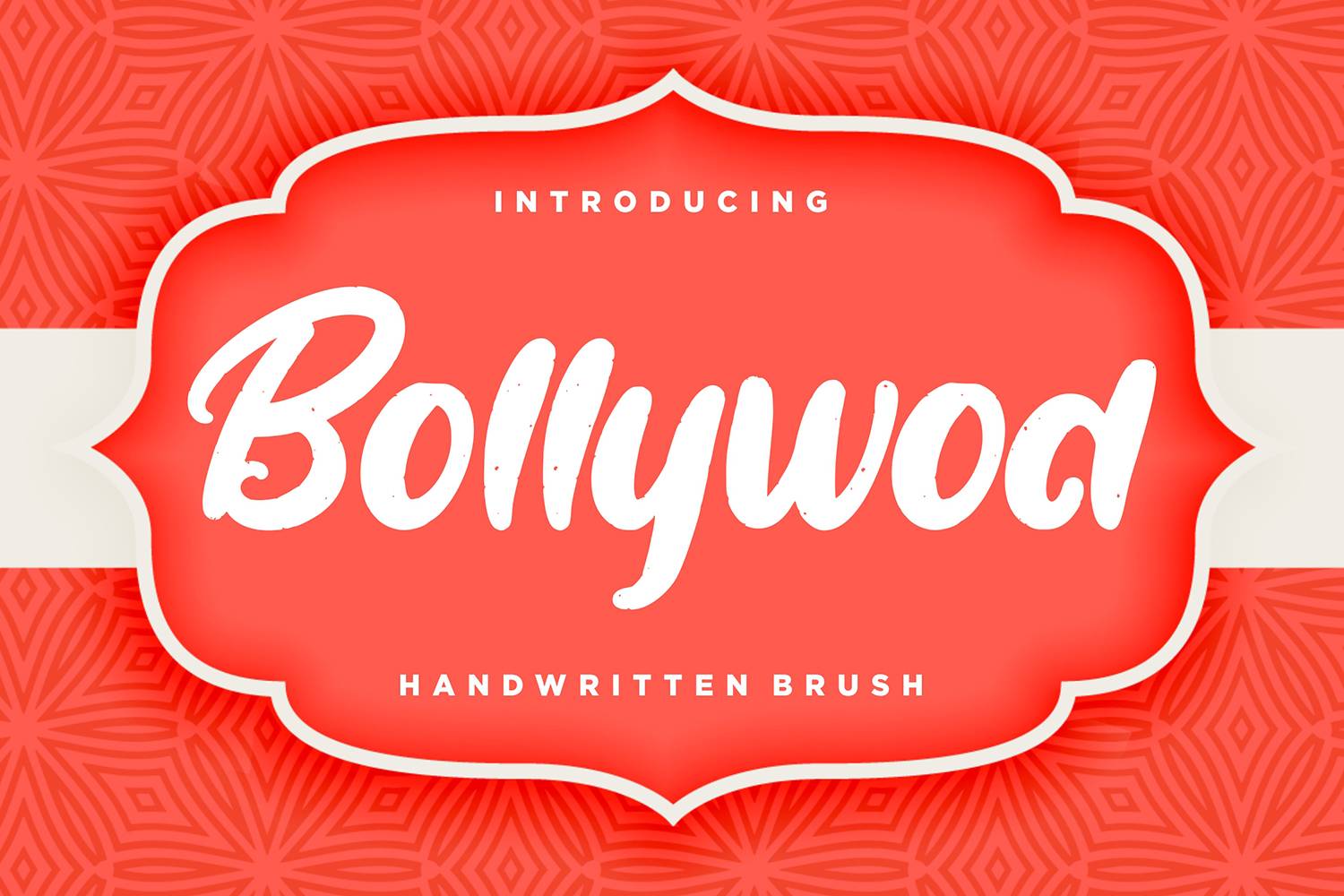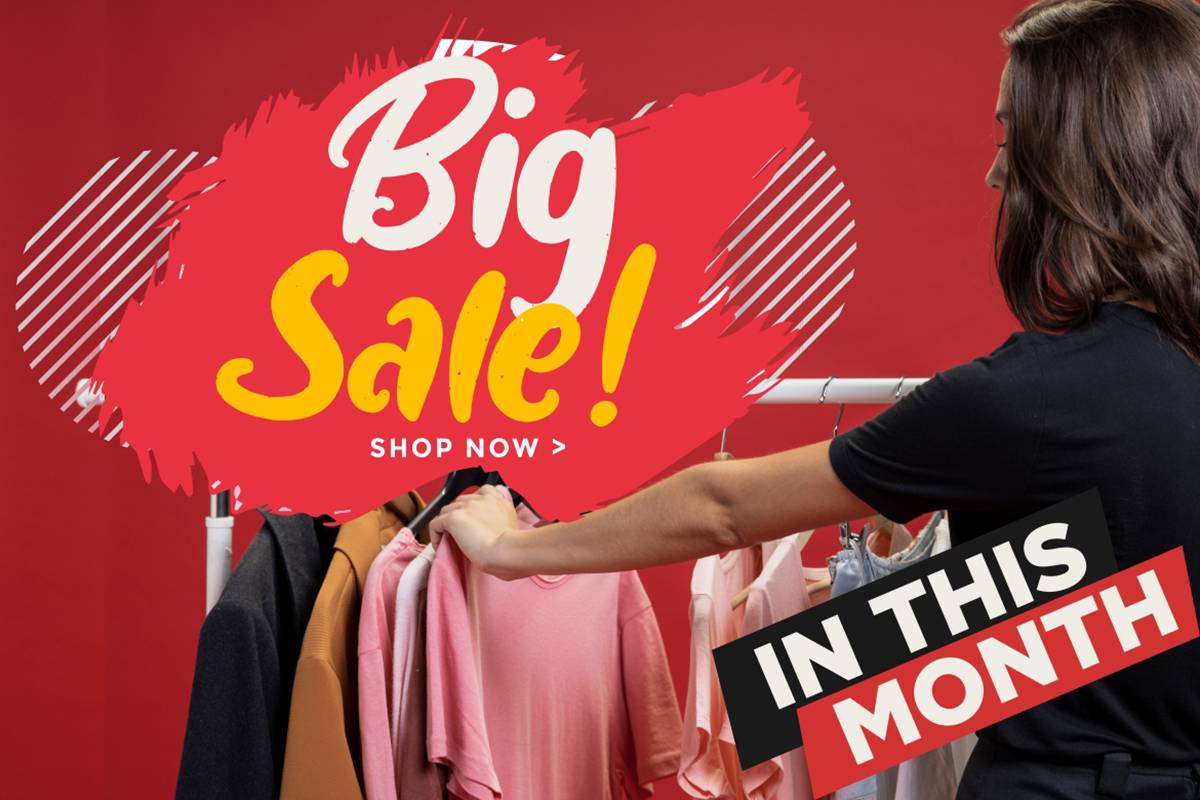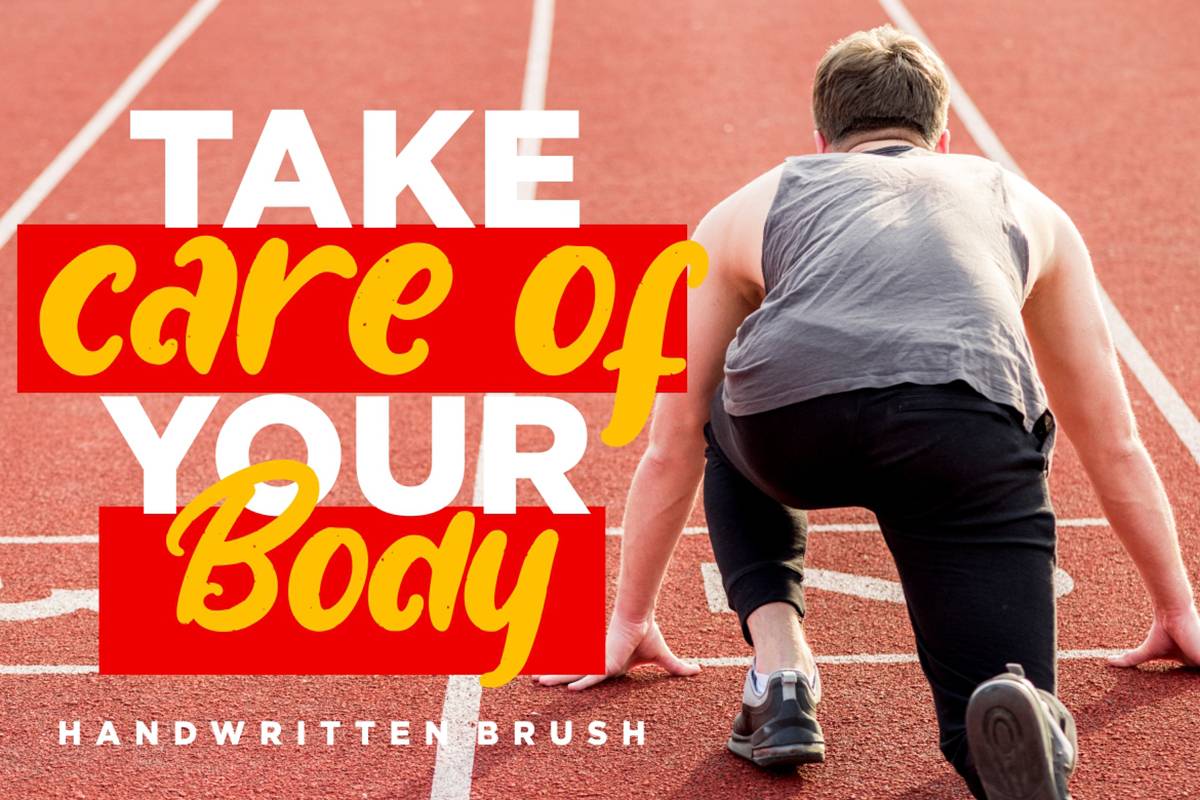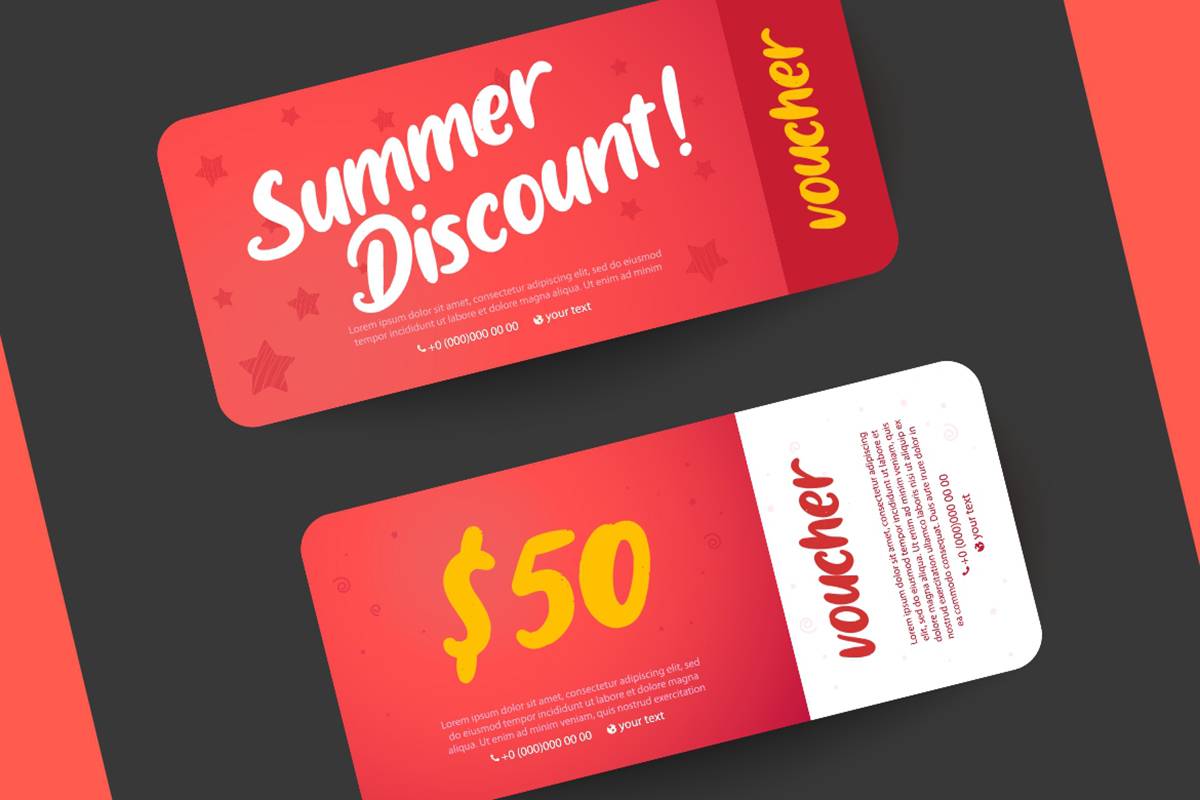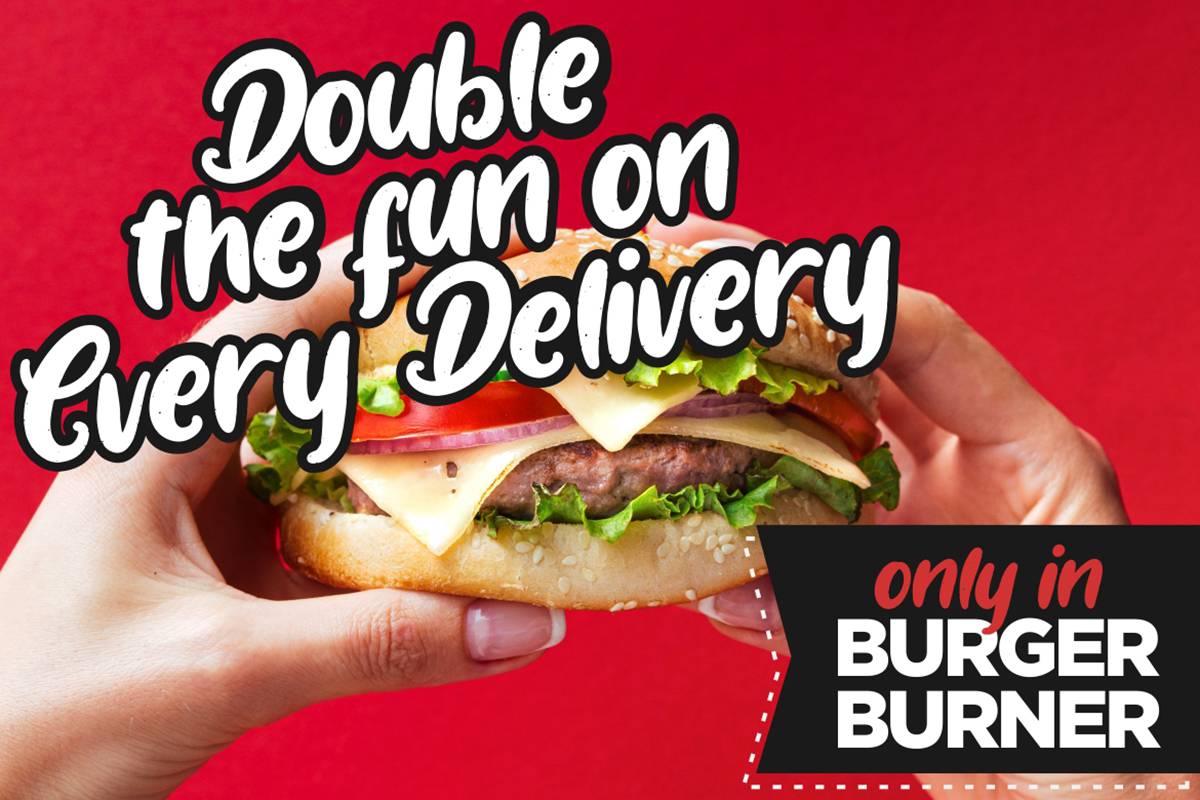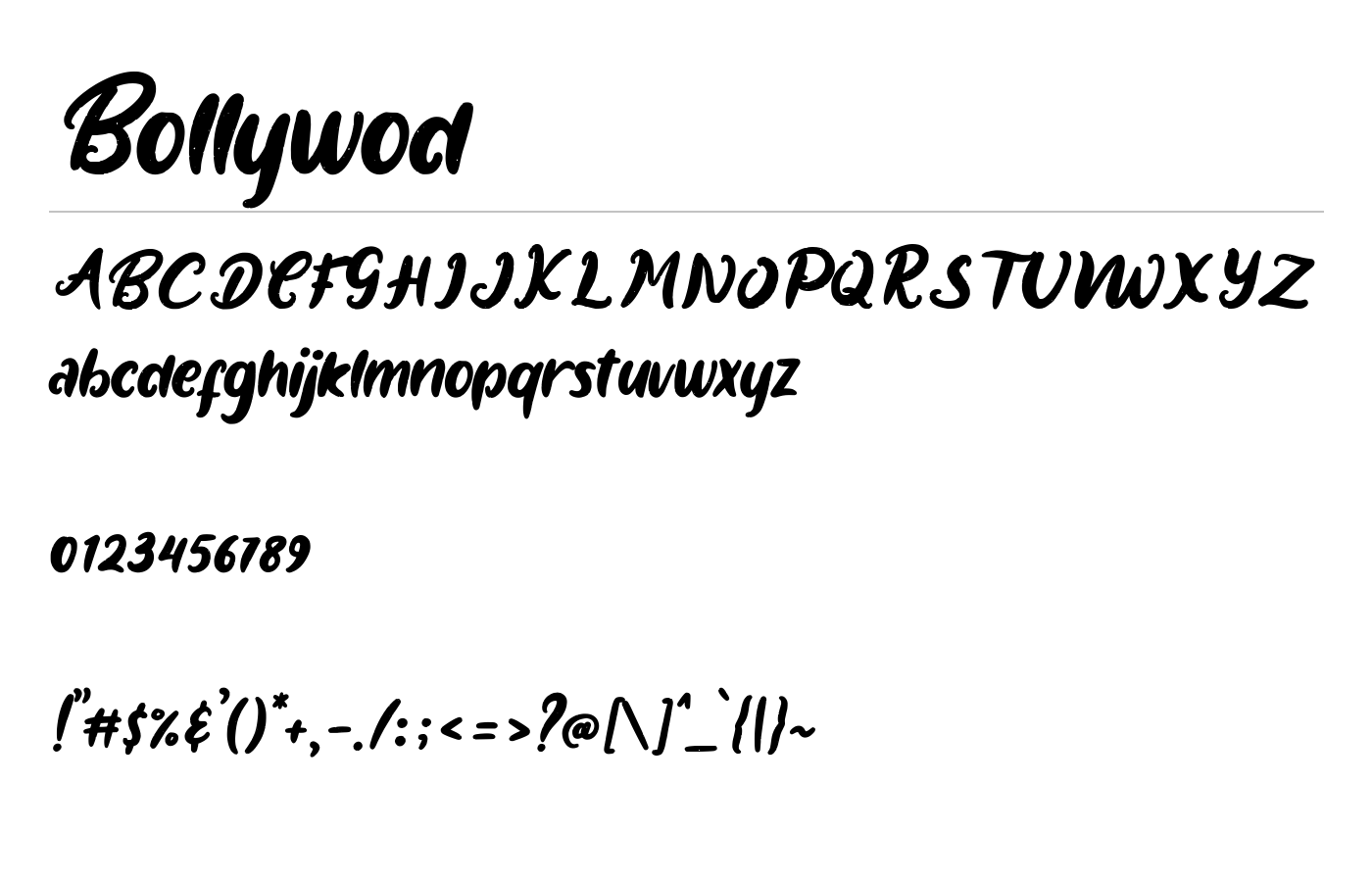
Bollywod Handwritten Brush Font is a lively, bold script typeface with a strong brush-stroke texture that conveys a friendly and energetic vibe. Its medium contrast, smooth curves, and playful letterforms make it perfect for creative projects, branding, and invitations that want to feel personal and dynamic. This font works well in headlines and logos, adding a touch of modern handwritten charm.
Bollywod Handwritten Brush Font
About Bollywod Handwritten Brush Font